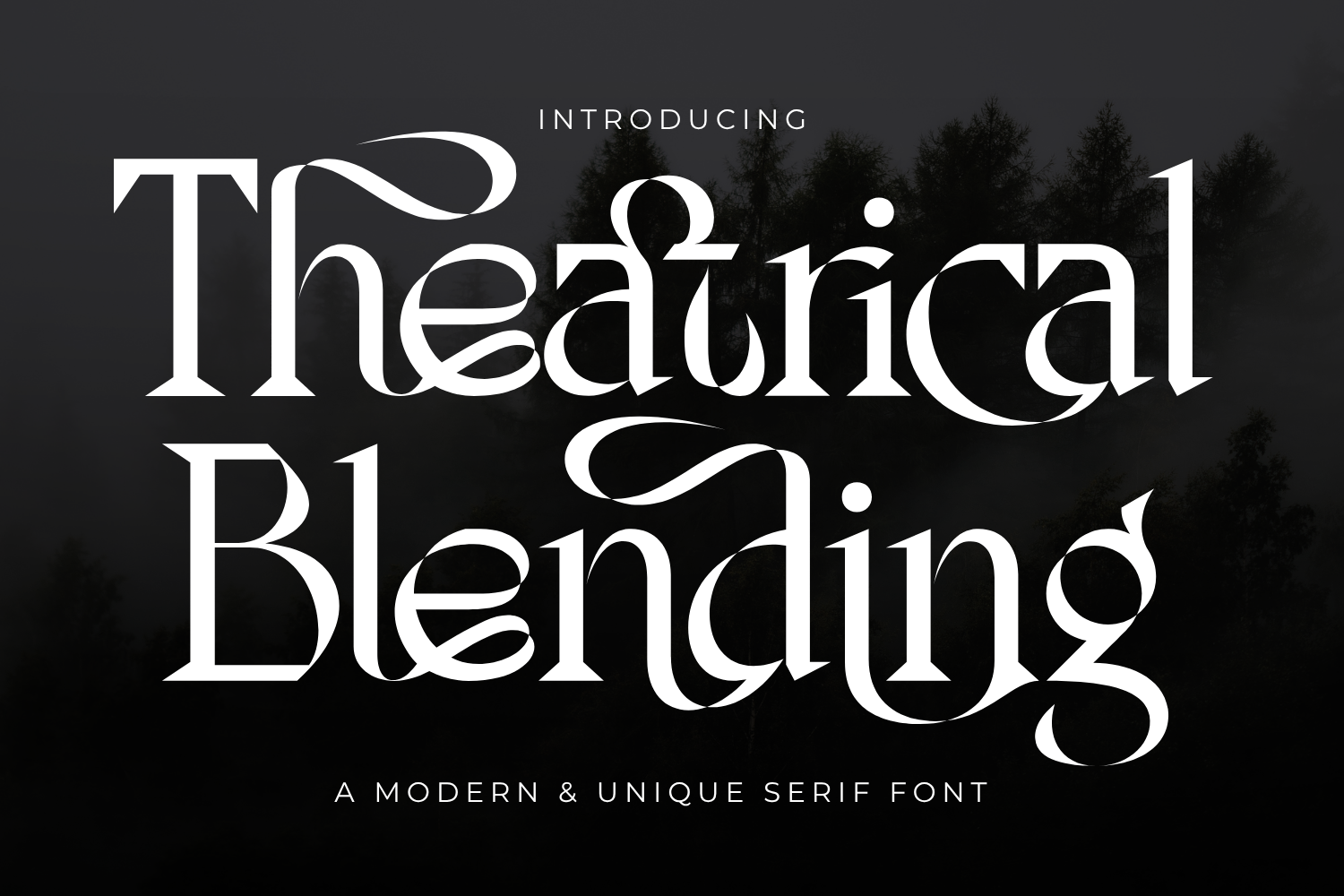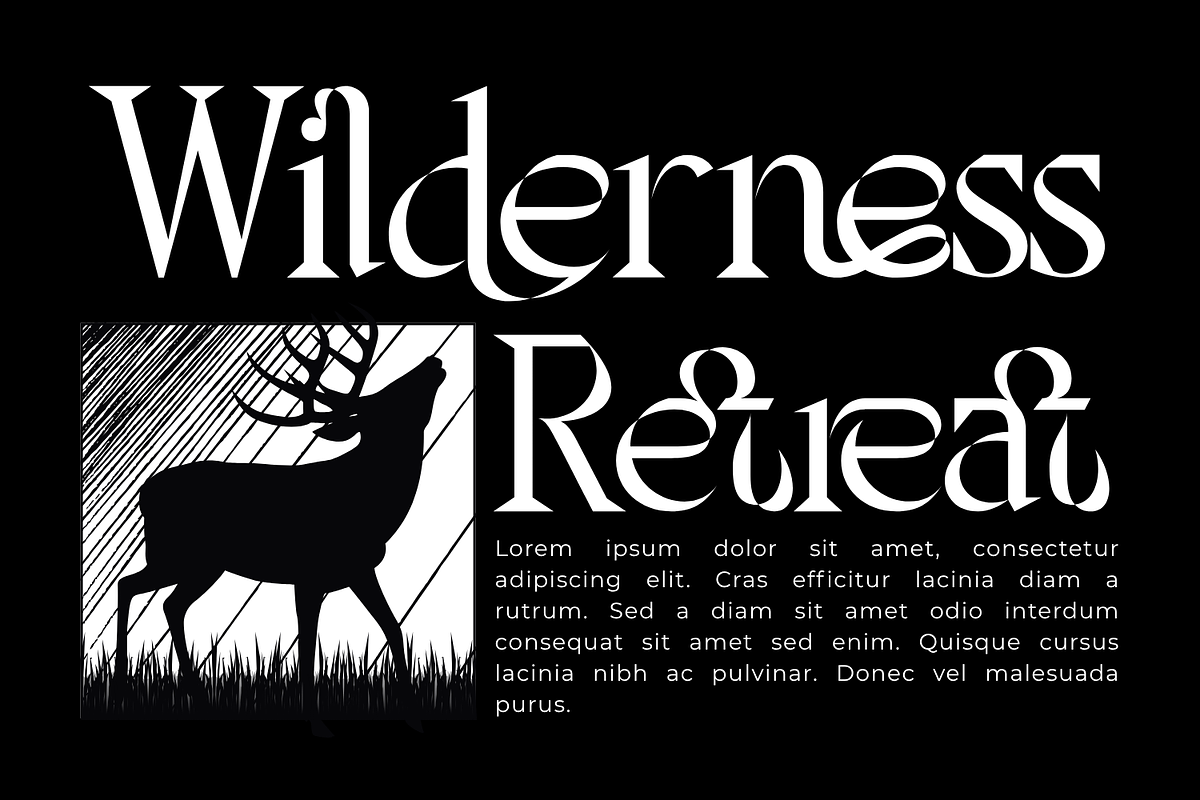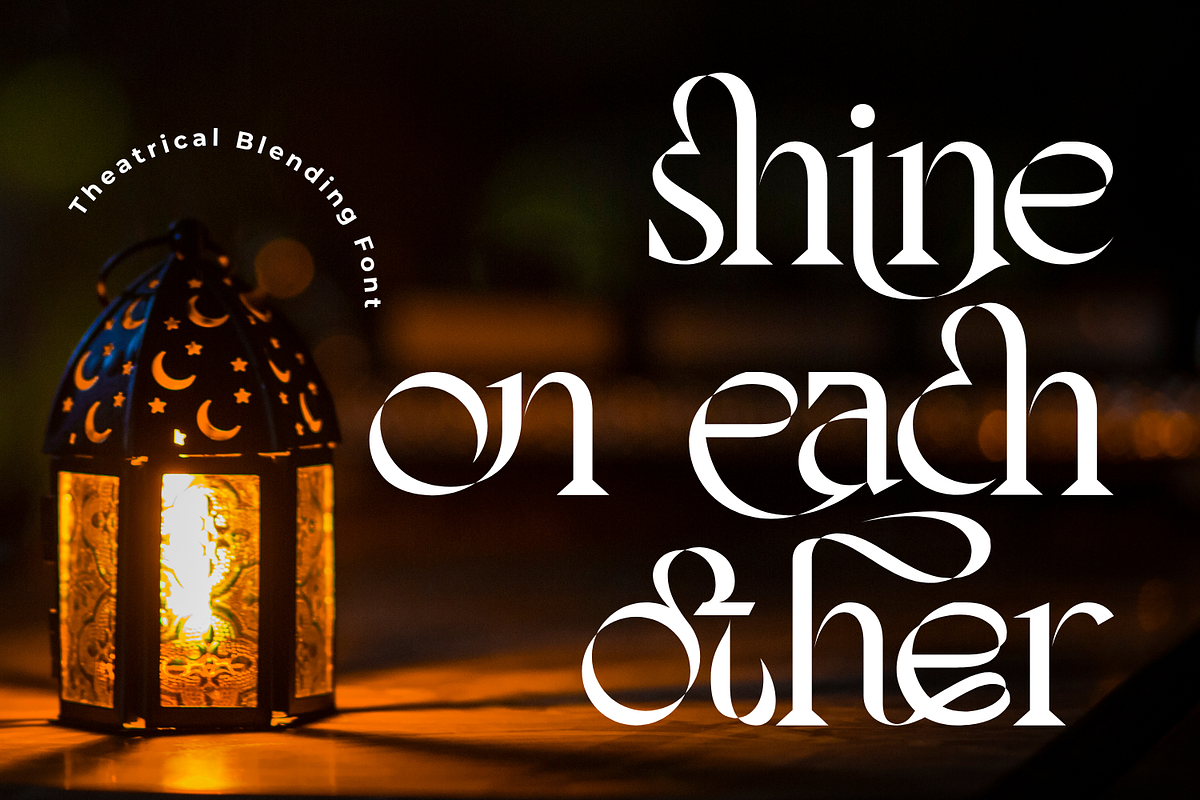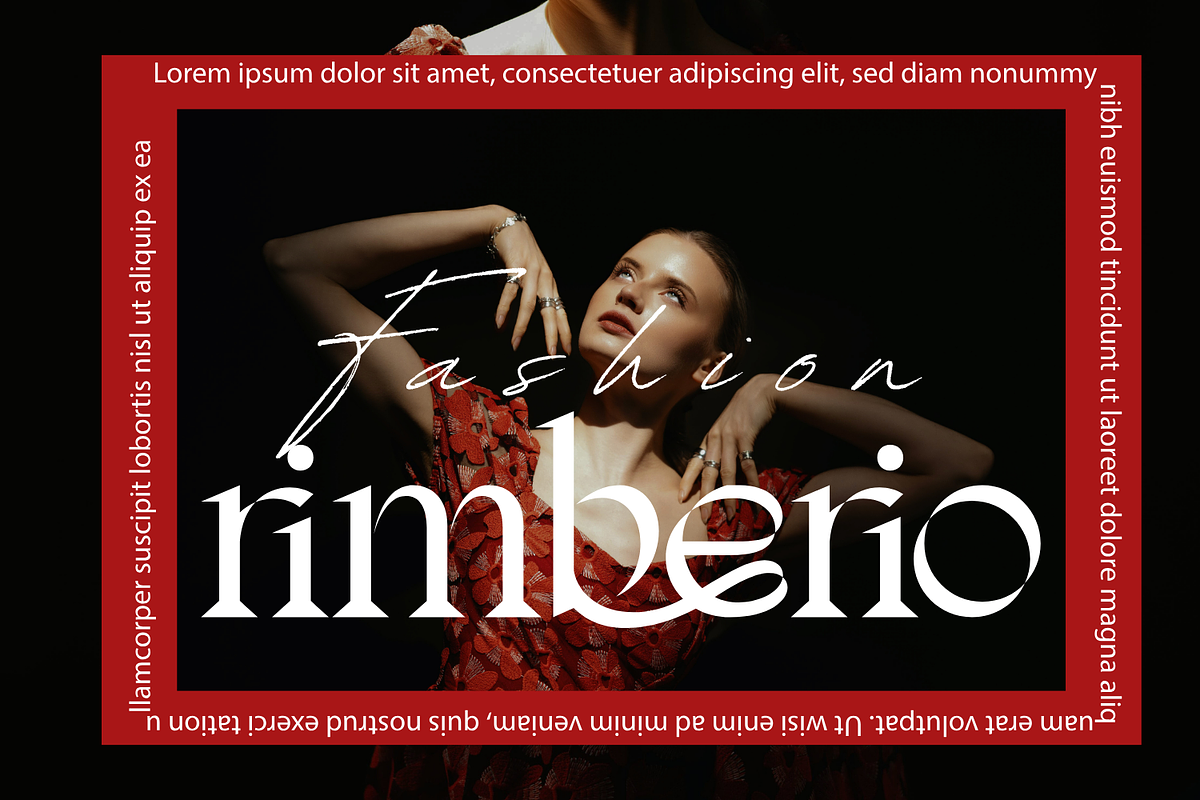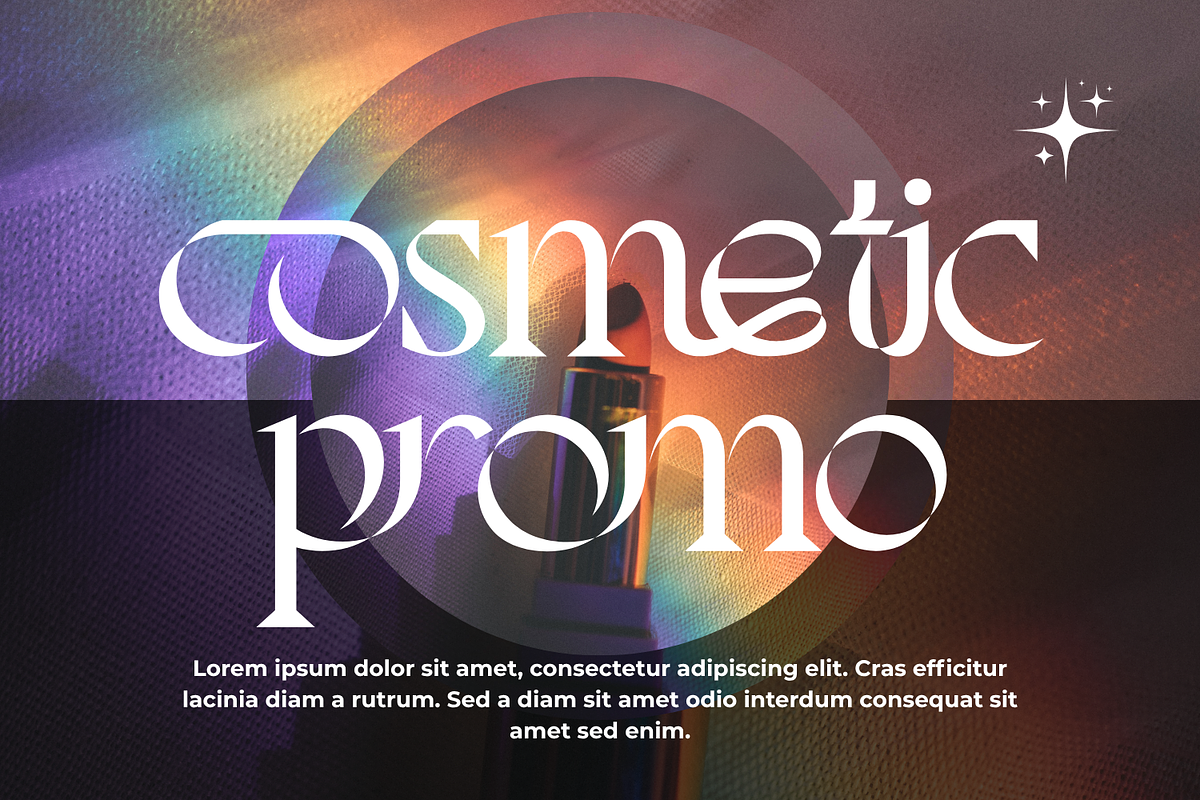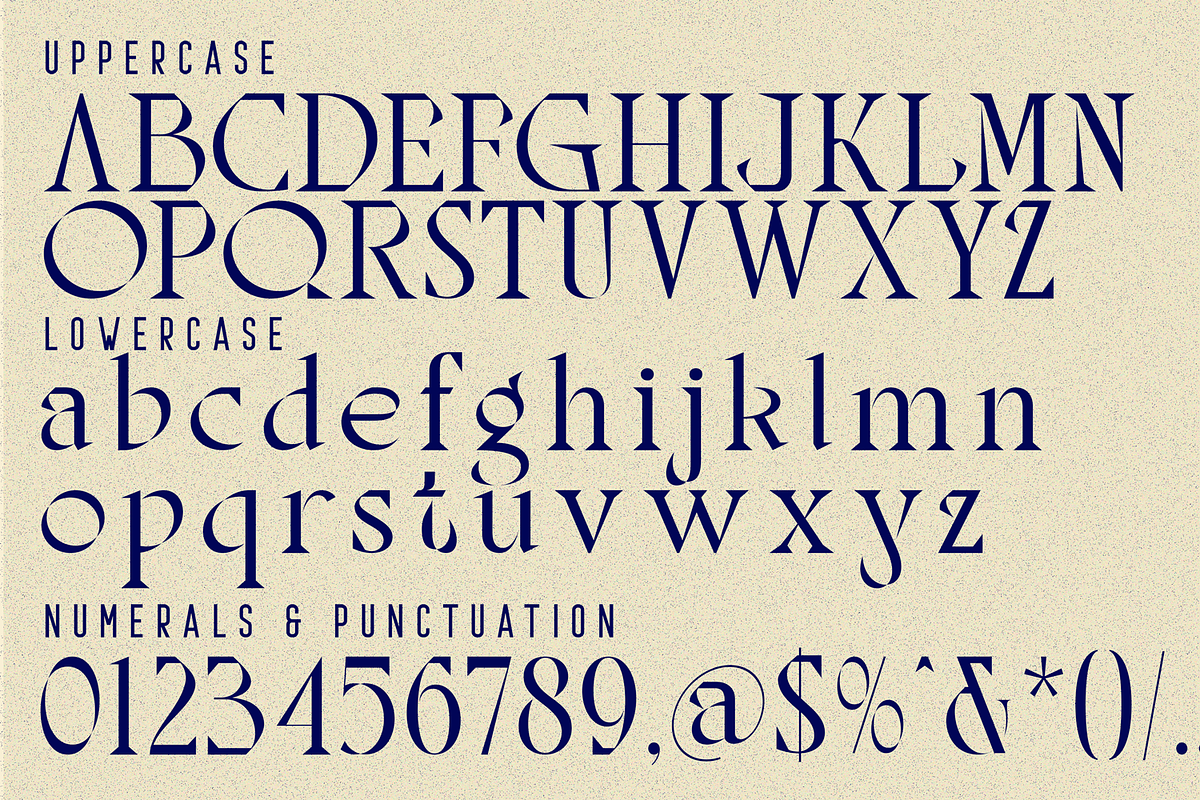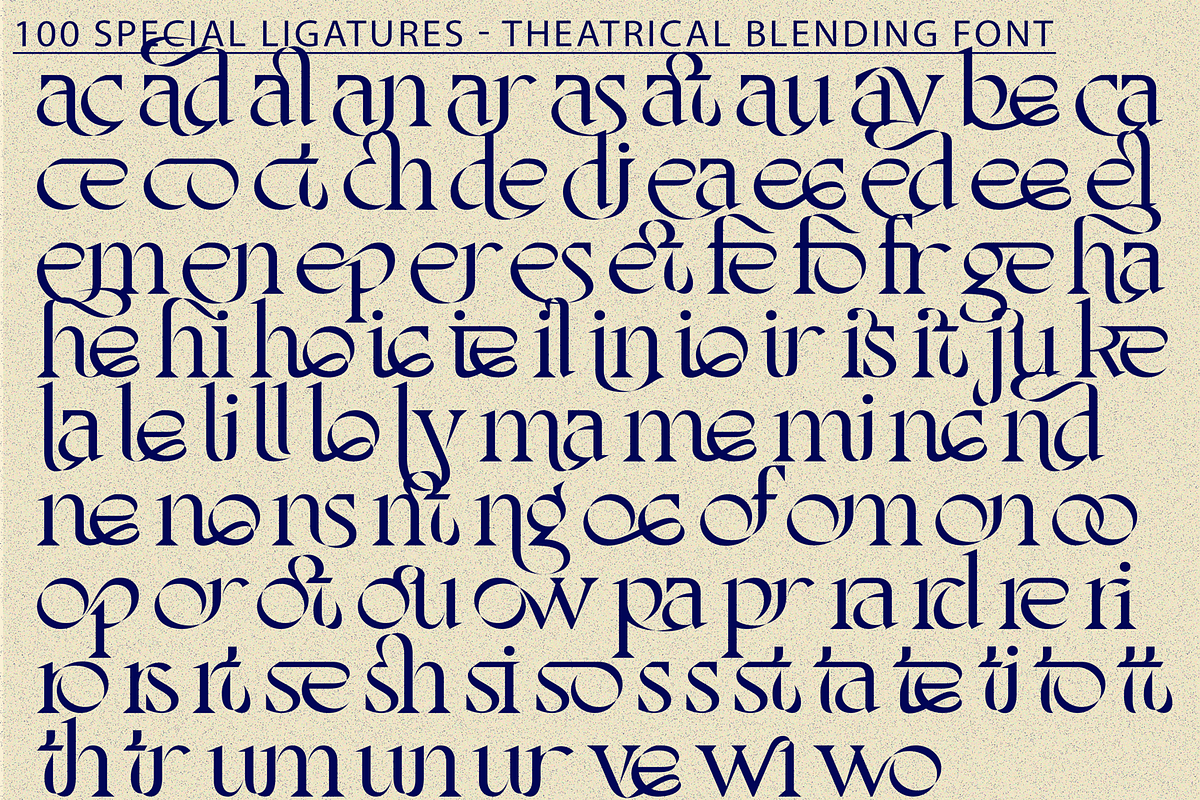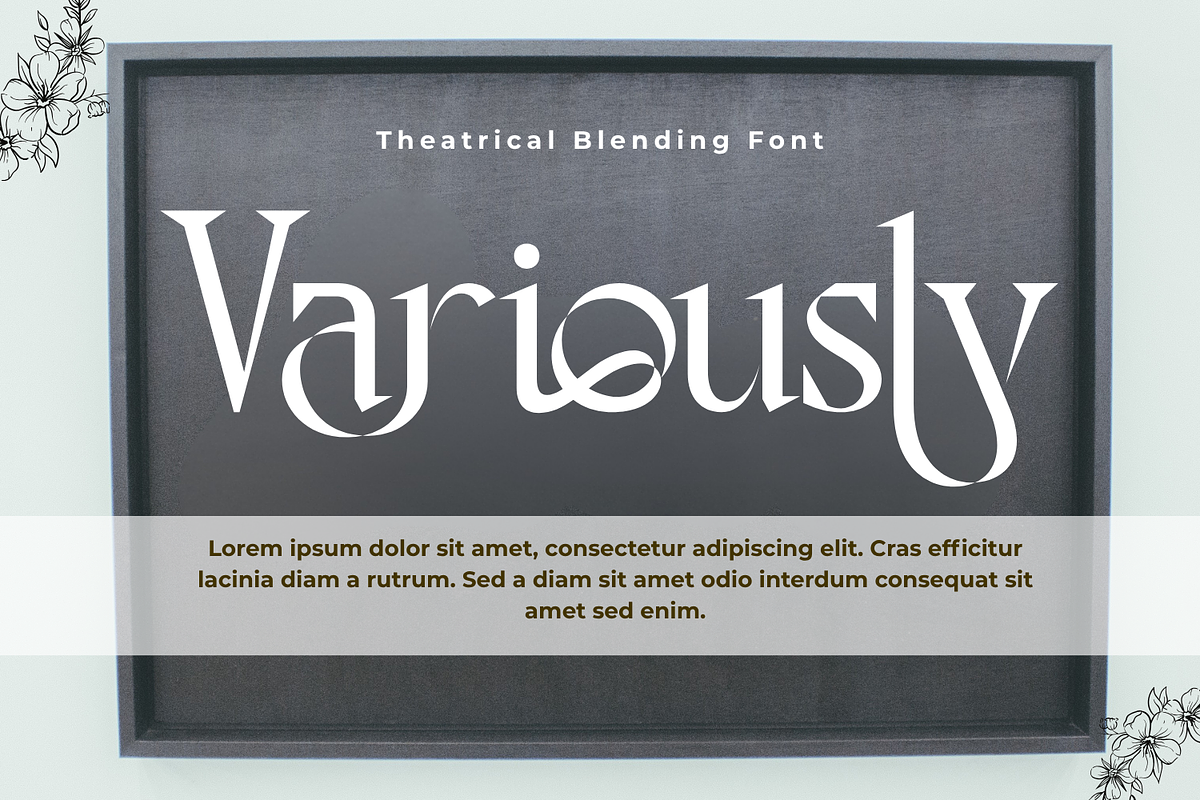
Theatrical Blending - Elegant Font
Theatrical Blending - Elegant Font, an Elegant Modern Serif Display Font crafted with striking contrast, refined curves, and dramatic ornamental swashes. Each character blends sharp serif precision with smooth flowing movements, creating a sophisticated and theatrical visual rhythm. The font features sculpted letterforms with sweeping tails, looped terminals, and expressive stylistic curves that bring a luxurious, artistic flair to any layout. Theatrical Blending is designed to evoke elegance and emotion—perfect for editorial titles, luxury branding, fashion campaigns, wedding invitations, packaging, posters, and any project that demands a refined yet distinctive typographic presence.
- Uppercase & Lowercase Letters
- Around 100 Special Ligatures & Stylistic Alternates
- Accented Characters for multilingual support
About 100 ligatures combined with Stylistic Alternates Font:
ac ad al an ar as at au av be ca ce ch co ct de di ea ec ed ee el em en ep er es et fe fo fr ge ha he hi ho ie ic il in io ir is it ju ke la le li ll lo ly ma me mi nc nd ne ng no nt ns oc of om on oo op or ot ou ow pa pr ra rd re ri ro rs rt se sh si so ss st ta te th ti to tr tt um un ur ve wi wo